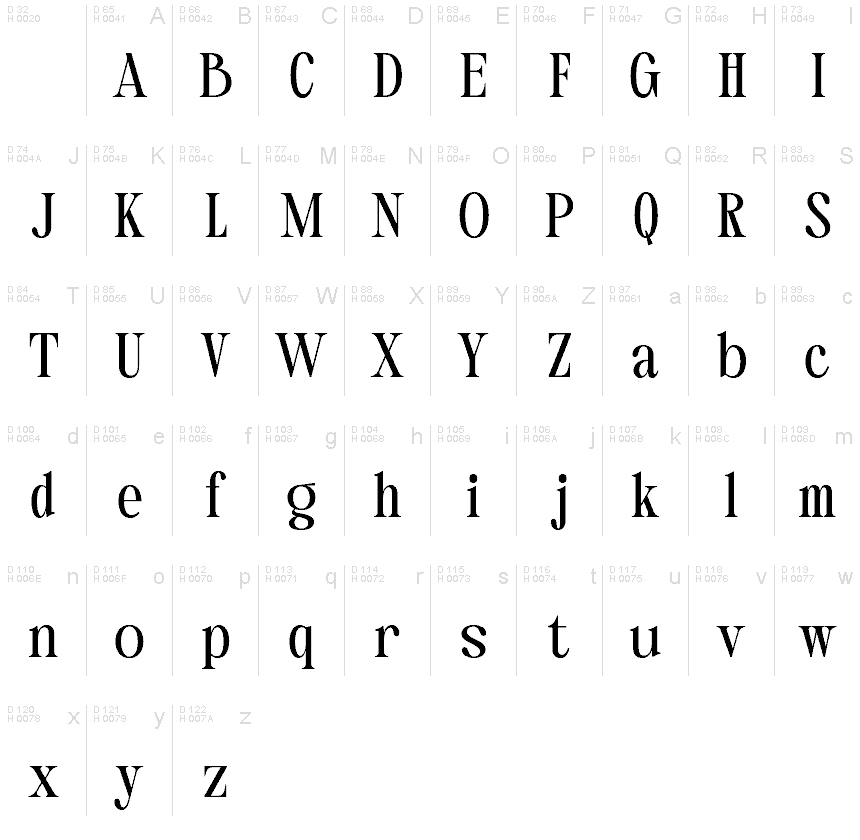
CS Balgin Regular Demo
CS Balgin font by Craft Supply Co. is a condensed serif font with a classic and professional tone. Its narrow characters give it that hard-to-find elegant feel while looking incredibly refined and traditional overall. The letters are of a balanced thickness combined with contrasts that make this typeface exceptionally beautiful.
Use CS Balgin for branding projects, book titles, product packaging, magazine covers, album covers, and web design. The font can also be useful in logo designs for luxurious brands or any sort of print project where you might need an exquisite display font. All these options are possible with this free serif typeface!